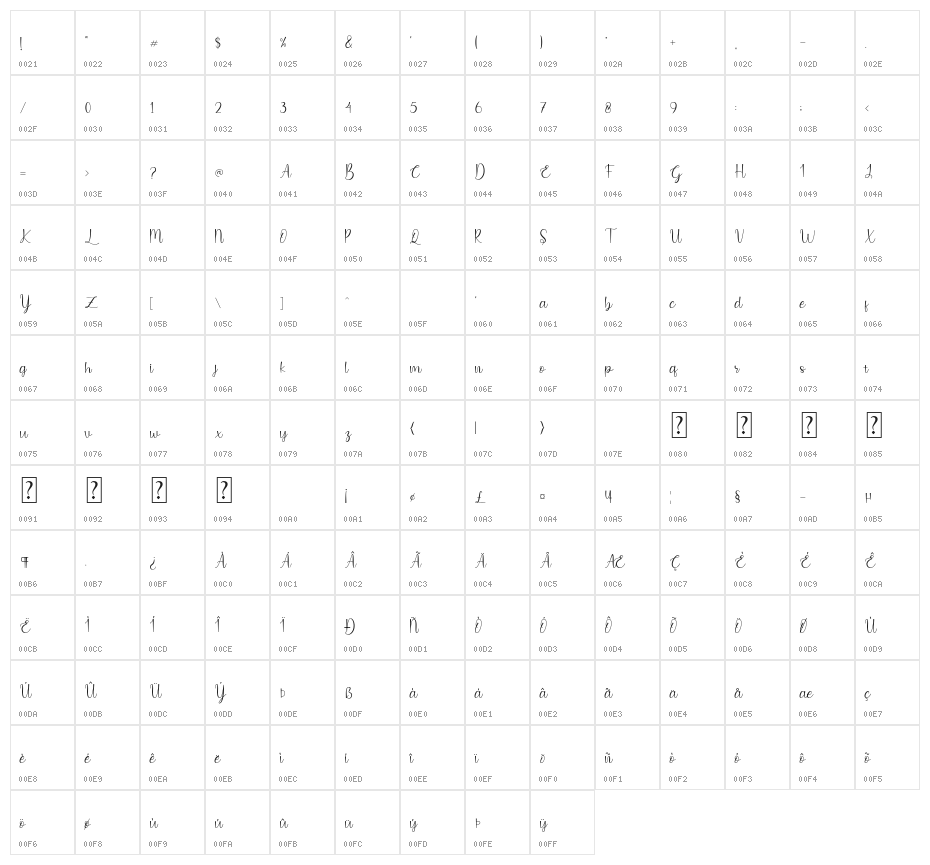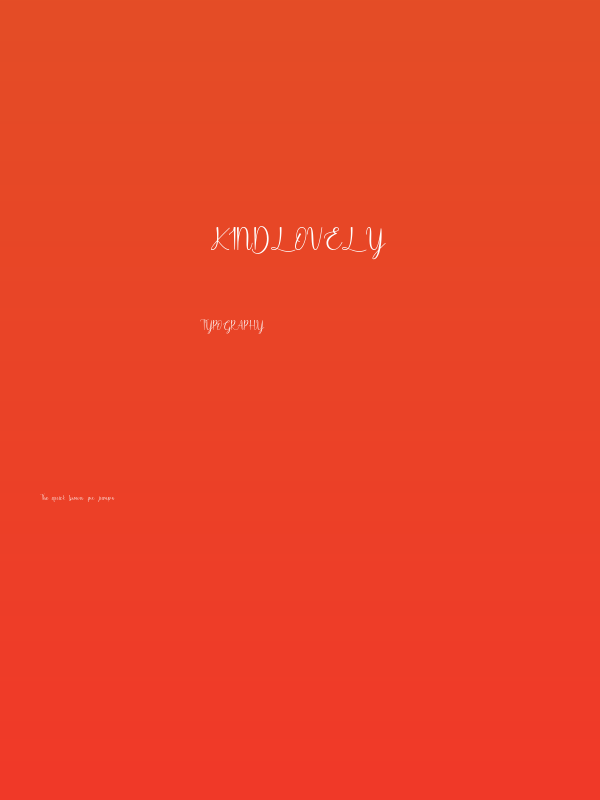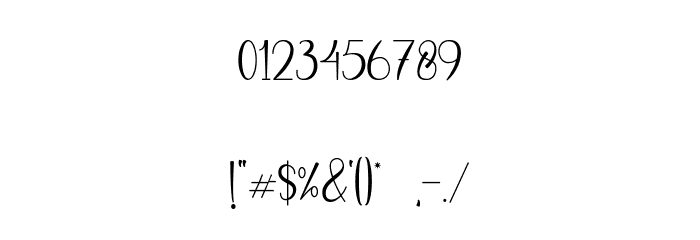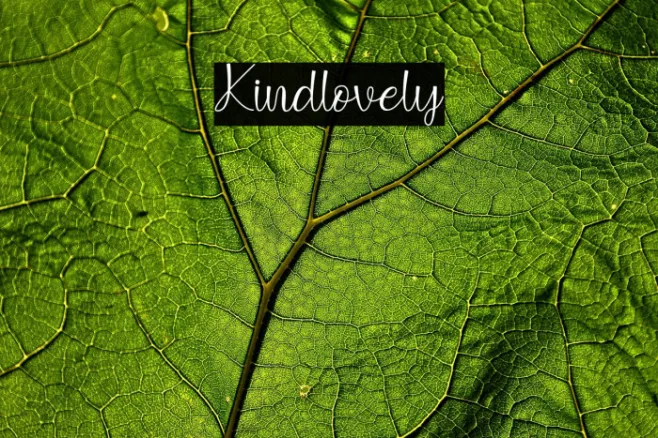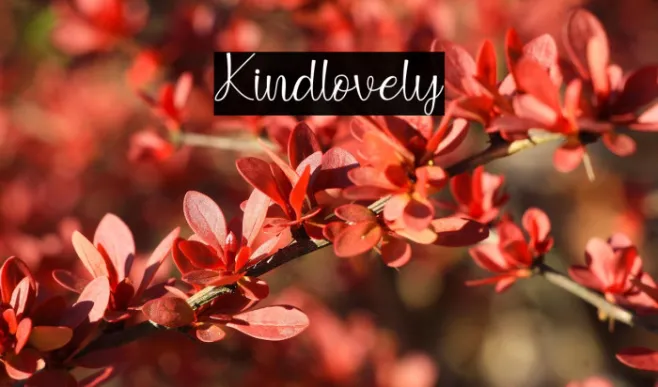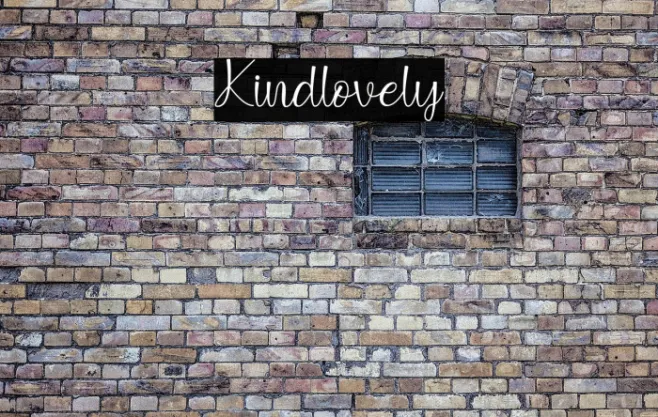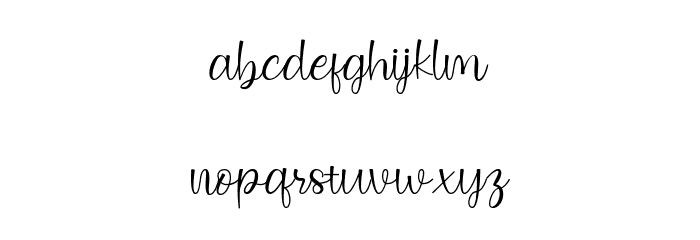
Kindlovely Font
Kindlovely Description
This font exudes a charming and whimsical style, characterized by its flowing, cursive script. The letters are elegantly connected, creating a sense of fluidity and movement. The uppercase letters are slightly more ornate, with delicate loops and swirls, while the lowercase letters maintain a consistent, smooth flow. The numerals are designed to complement the letters, maintaining the same graceful curves. Special characters are thoughtfully integrated, ensuring they match the overall aesthetic. This font is perfect for adding a touch of elegance and personality to any project.
| Use Case | Logos, Invitations, Decorative Text |
| Proposed Projects | Ideal for wedding invitations, greeting cards, personal branding, and decorative signage. |